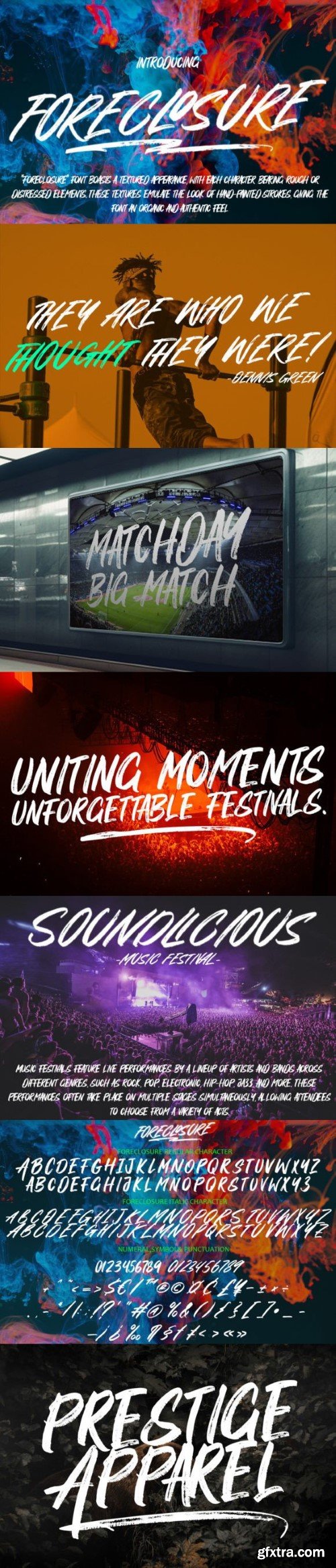
foreclosure font
Foreclosure is a non-script font with a textured look that suits various design purposes. It can be applied to branding, packaging, posters, and more, giving personality and dimension to any project.